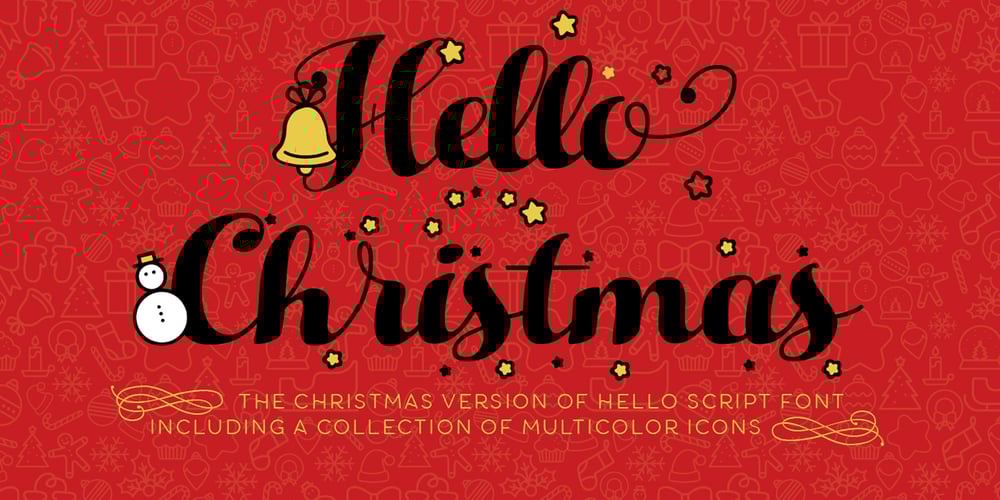
Hello Christmas
Hello Christmas font
Hello Christmas Font Family was designed by Cosimo Lorenzo Pancini and published by Zetafonts. Hello Christmas contains 7 styles and family package options. Hello Christmas is the christmas-themed version of Zetafonts’ Hello Script family including a set of Icons (designed by Cristiana Pezzatini), both featuring multilayer color fill. An high contrast calligraphic script designed by Cosimo Lorenzo Pancini, featuring monoline swashes and terminals and strong, round body shapes designed with a parallel nib. It covers over 40 languages that use the Latin alphabet, with full range of accents and diacritics, and comes with over ten different swashes.